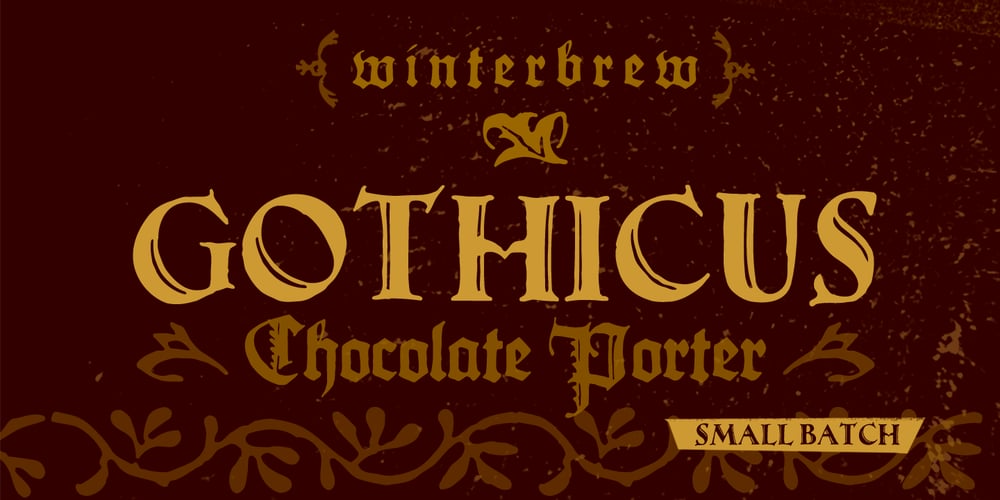
Gothicus
Gothicus font
Gothicus Font Family was designed by Stephen Miggas and published by Aerotype. Gothicus contains 3 styles and family package options. From original samples of Rudolf Koch’s Maximilian, Gothicus and Gothicus Alternate have Fraktur style captials, Gothicus Roman has Roman capitals. All three have the same lower case which includes three swash characters for g, s and t, available as discretionary ligatures in OpenType versions, and manually otherwise. All include two authentic ornaments, also penned by Koch. Gothicus Roman has three additional floret ornaments.